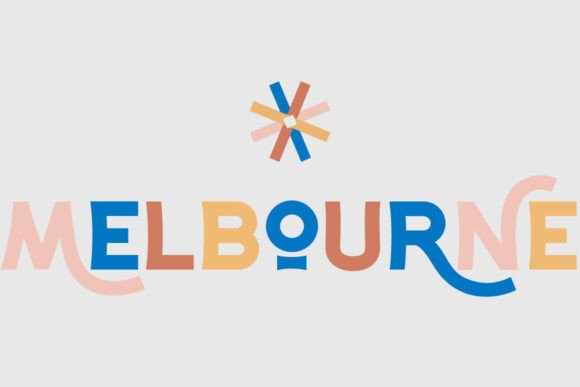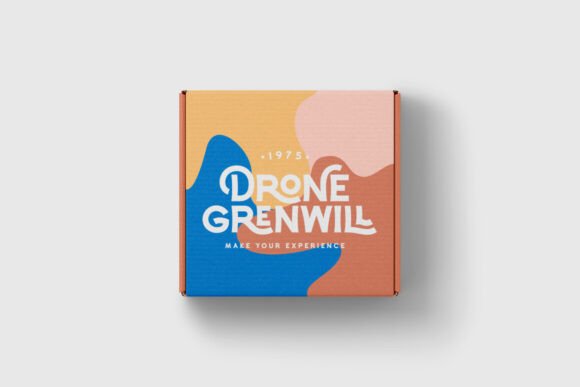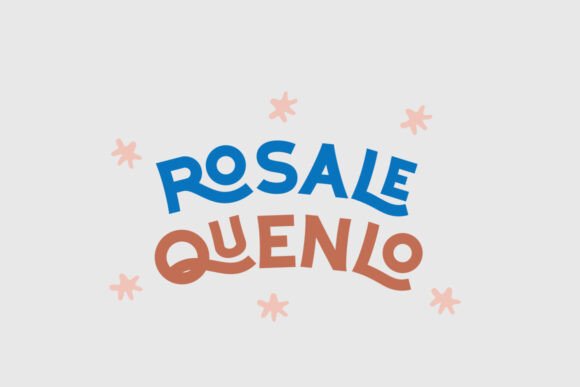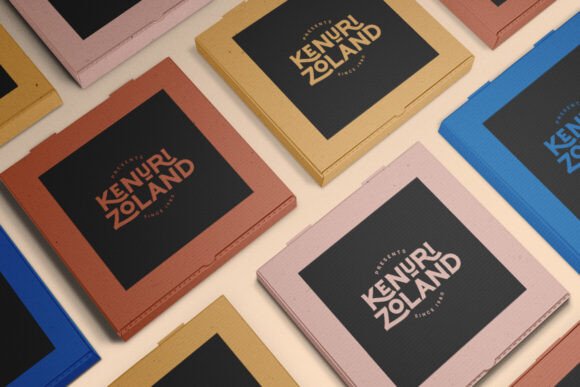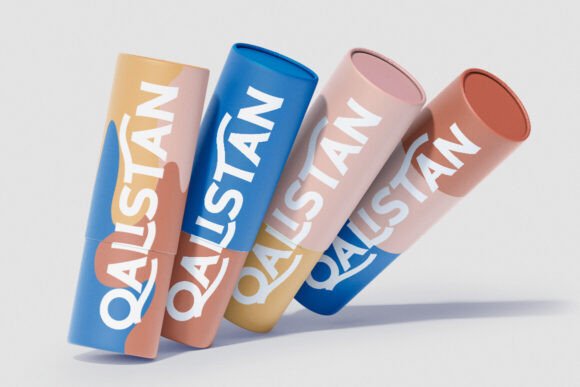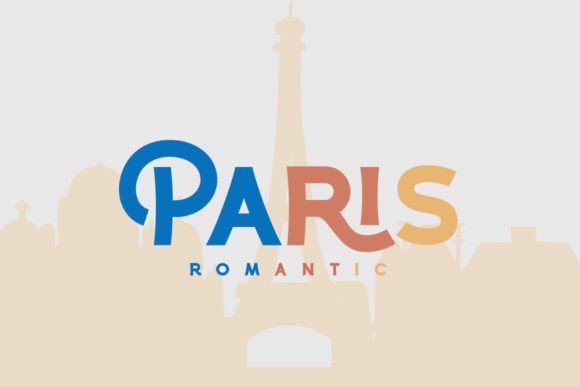
Bronill Font: Adding a Cheerful Touch to Your Designs
In the world of typography, fonts play a crucial role in conveying the tone and personality of a design. If you’re a designer or crafter looking for a font that can add a playful and cheerful touch to your work, look no further than Bronill Font. This lively and fun display font is perfect for creative projects, branding, and playful designs that require a unique and quirky approach.
What Makes Bronill Font Special?
Bronill Font stands out from the crowd with its unique ligatures and quirky letterforms. The font’s design is carefully crafted to bring a sense of joy and personality to any design. Whether you’re working on a logo, poster, or children’s product, Bronill Font is the perfect choice to add a touch of whimsy and fun. The font’s playful nature makes it an excellent option for designers who want to create engaging and eye-catching designs that appeal to a wide audience.
Perfect for Playful Designs and Branding
Bronill Font is ideal for designers who specialize in playful designs and branding. The font’s lively and cheerful nature makes it perfect for creating logos, posters, and other marketing materials that require a fun and approachable tone. With Bronill Font, you can add a personality to your brand that resonates with your target audience. The font’s unique ligatures and quirky letterforms ensure that your design stands out from the competition and leaves a lasting impression.
Unique Features of Bronill Font
Bronill Font comes with several unique features that make it an excellent choice for designers and crafters. Some of the font’s notable features include:
- Unique Ligatures: Bronill Font features unique ligatures that add a touch of personality to your design.
- Quirky Letterforms: The font’s quirky letterforms are carefully designed to bring a sense of joy and playfulness to your design.
- Lively and Fun: Bronill Font is a lively and fun display font that is perfect for creative projects and playful designs.
Use Cases for Bronill Font
Bronill Font is a versatile font that can be used in a variety of design projects. Some of the most popular use cases for the font include:
- Logos: Bronill Font is perfect for creating fun and playful logos that reflect your brand’s personality.
- Posters: The font’s lively and cheerful nature makes it ideal for creating eye-catching posters that grab attention.
- Children’s Products: Bronill Font is a great choice for designing children’s products, such as toys, games, and educational materials.
- Branding: The font’s unique ligatures and quirky letterforms make it perfect for branding projects that require a playful and approachable tone.
Why Choose Bronill Font?
There are many reasons why Bronill Font is an excellent choice for designers and crafters. Here are a few reasons why you should consider using this font in your next project:
- Unique Design: Bronill Font features a unique design that sets it apart from other fonts.
- Playful Nature: The font’s playful nature makes it perfect for creating engaging and eye-catching designs.
- Versatility: Bronill Font is a versatile font that can be used in a variety of design projects.
In conclusion, Bronill Font is a lively and fun display font that is perfect for playful designs, branding, and creative projects. With its unique ligatures and quirky letterforms, the font adds a cheerful touch to any design. Whether you’re a designer or crafter, Bronill Font is an excellent choice for creating engaging and eye-catching designs that appeal to a wide audience. So why wait? Download Bronill Font today and bring joy and personality to your work!